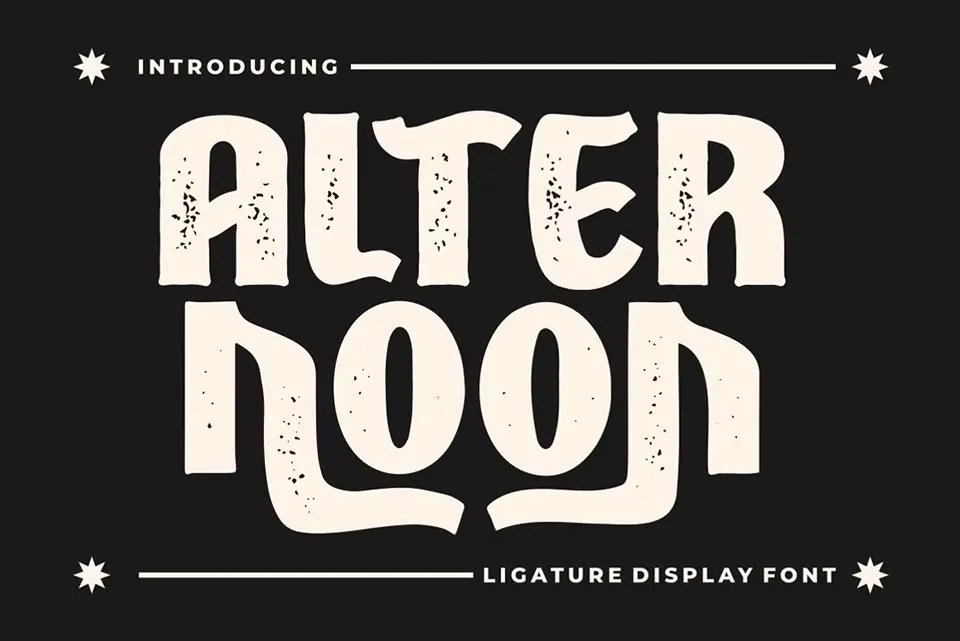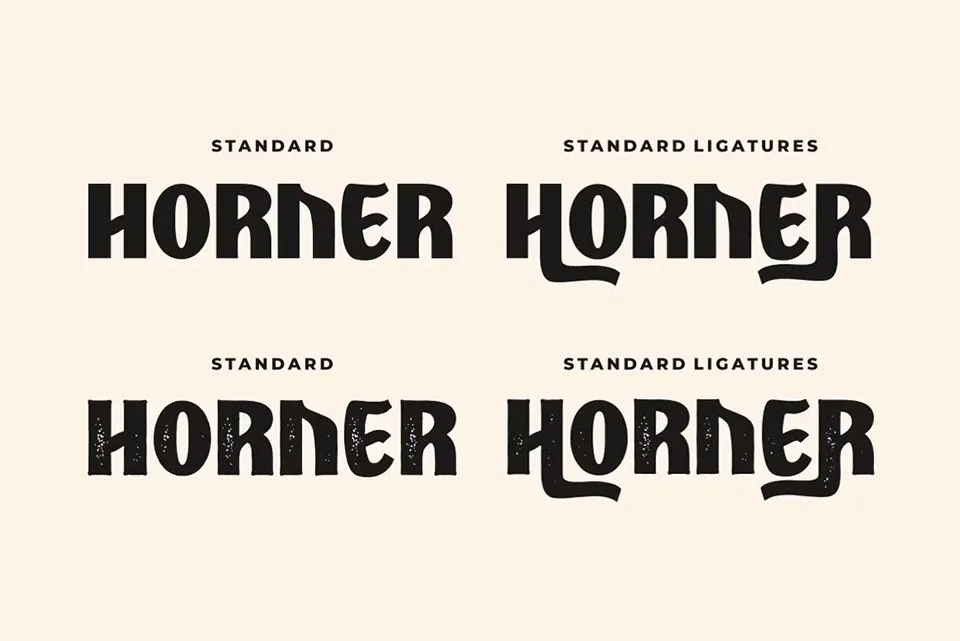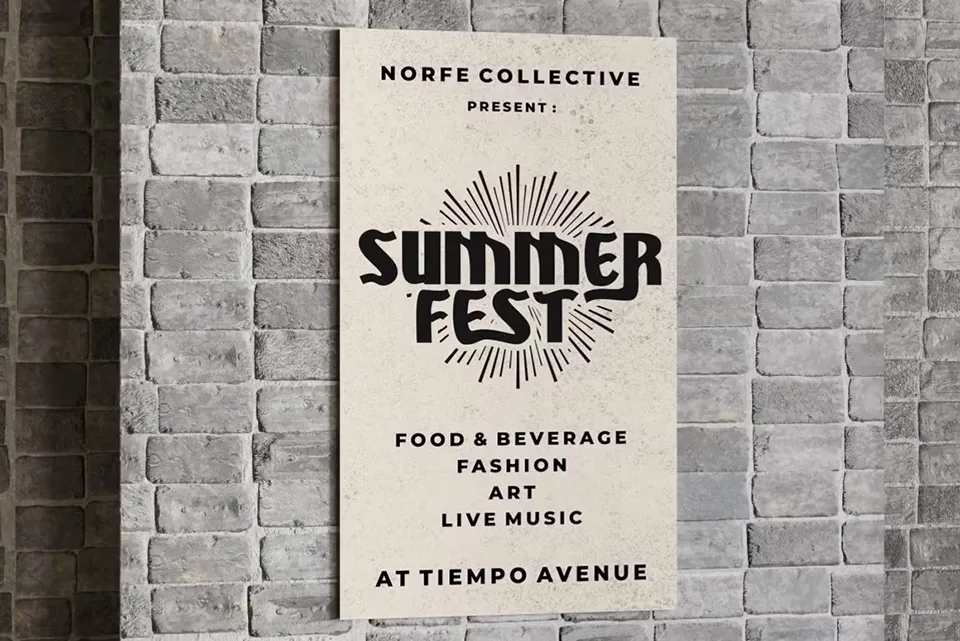
Alternoon Font
Alternoon Font is a distinctive ligature display font designed by PutraCetol Studio. This versatile typeface combines well-balanced curves with a unique ligature style, creating a fun and trendy aesthetic that brings designs to life. Alternoon features surprising alternate characters that make your work even more beautiful and engaging. Perfect for adding a professional touch to logos, branding, greeting cards, advertisements, and packaging, this font strikes the ideal balance between uniqueness and readability. With comprehensive OpenType features including Swash, Stylistic Sets, and Contextual Alternates, Alternoon offers creative flexibility across multiple platforms. Available in multiple formats with multilanguage support, Alternoon transforms ordinary text into extraordinary visual expressions for any creative project.